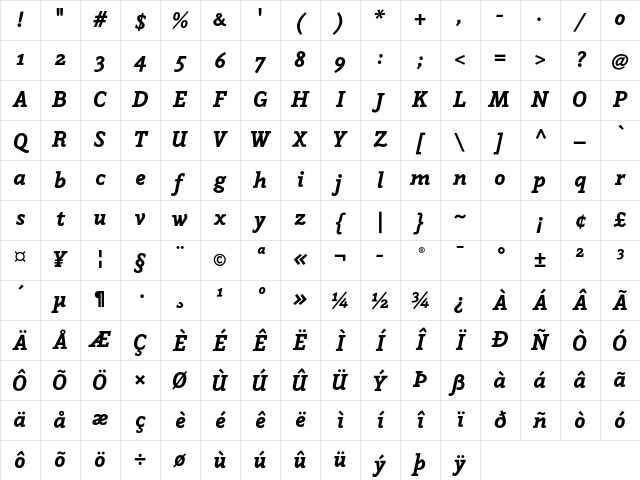
Napoleone Slab ITC Std BlackIt
Style: BlackIt
Designer: Silvio Napoleone
Design Context for Napoleone Slab ITC Std
Napoleone Slab ITC Std features prominent, blocky serifs that give it a confident, grounded presence - equally at home in editorial settings and bold branding work.